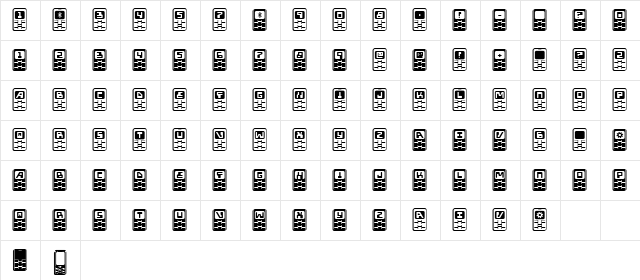
Hola Mota Bold Expanded is a composed and adaptable typeface that performs quietly and consistently across a wide range of design contexts. Its bold stroke weight gives it real presence on the page.